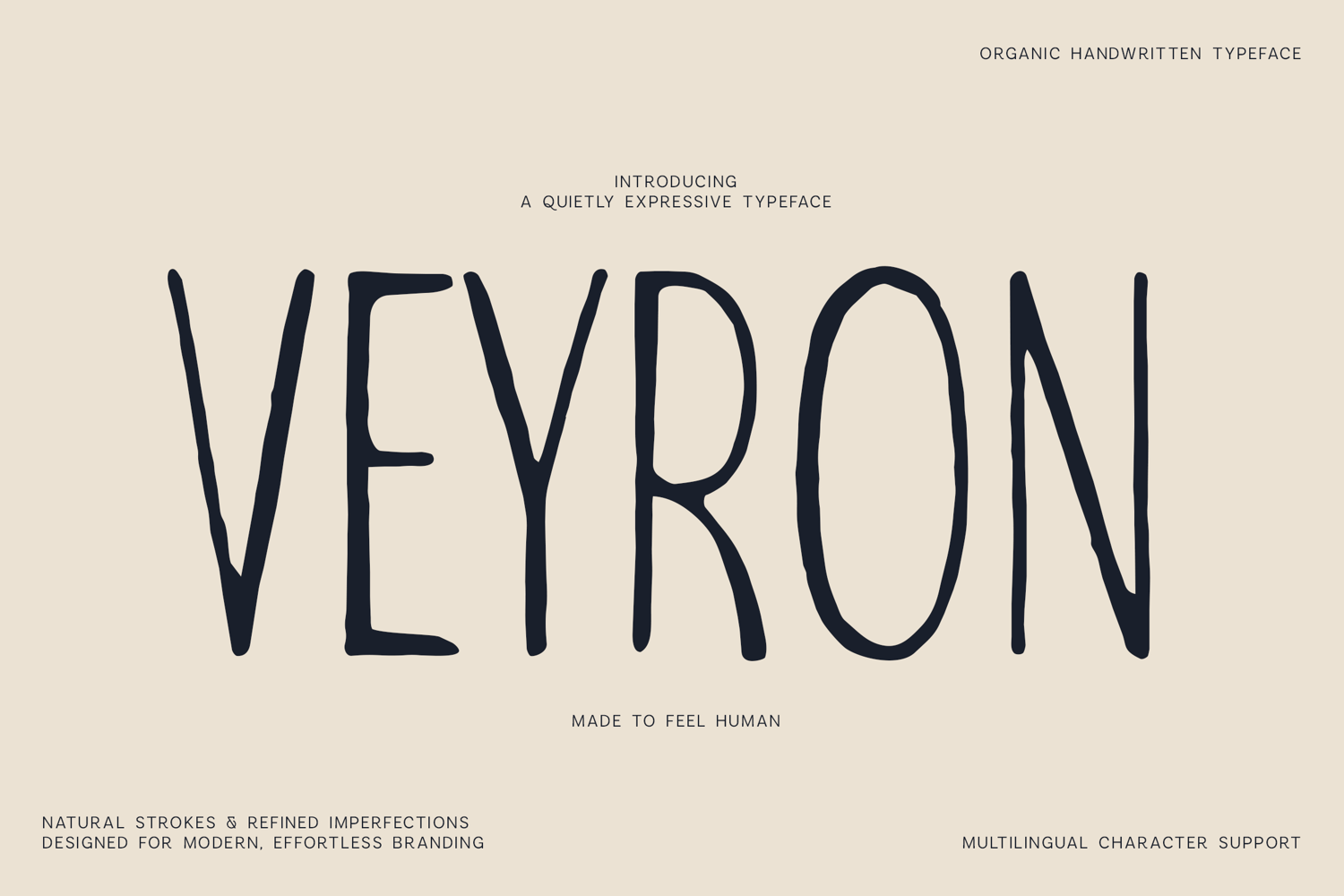
Veyron Organic Handwritten Typeface
Veyron is an organic handwritten typeface that captures the beauty of natural, imperfect lettering. Designed with refined irregularities and authentic hand-drawn strokes, it brings warmth, personality, and effortless character to every project while remaining clean, highly readable, and versatile.
Its tall, narrow proportions make it ideal for modern branding, editorial layouts, packaging, lifestyle products, social media, book covers, posters, cafés, restaurants, and creative identities that need a genuine human touch. Every letter is carefully crafted to feel naturally written rather than mechanically constructed, giving your typography an expressive yet understated presence.
Whether you're creating minimalist branding, artisan packaging, travel journals, children's books, handmade products, or contemporary editorial designs, Veyron delivers a timeless handwritten aesthetic that feels both relaxed and refined.
- Organic Handwritten Style
- Natural Hand-Drawn Imperfections
- Perfect for Branding, Packaging, Editorial, Logos & Social Media